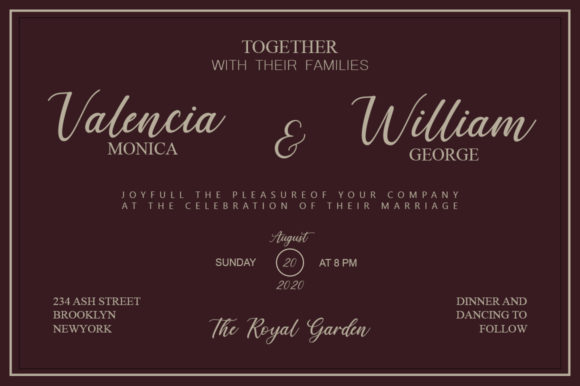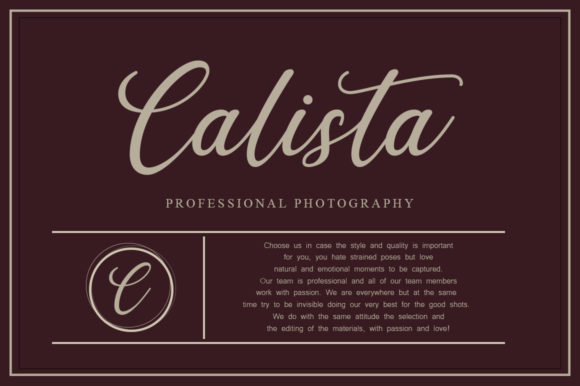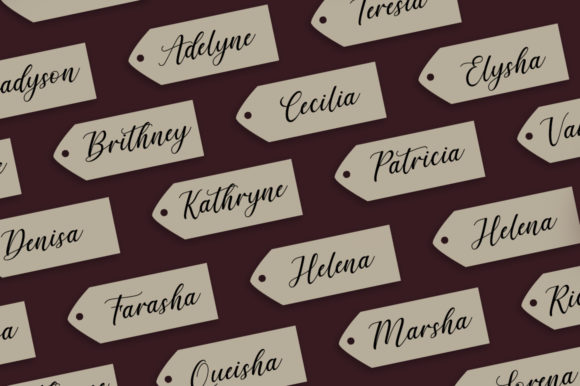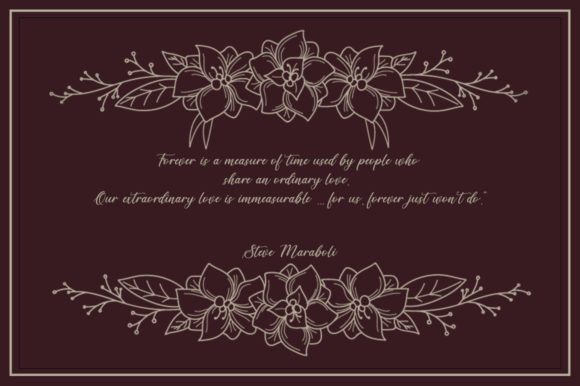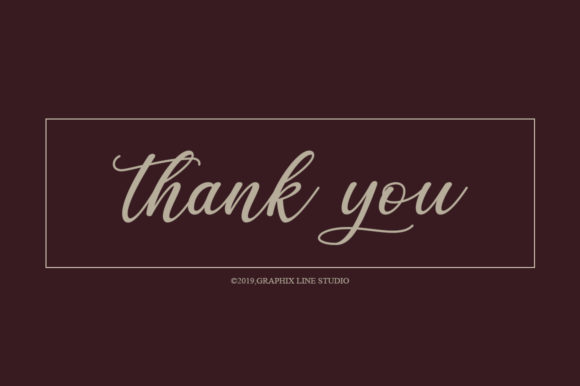
Introduction to Derick Chetty Font
Derick Chetty is the perfect font for a huge variety of crafting projects.
Get inspired by its stunning alternates characters .